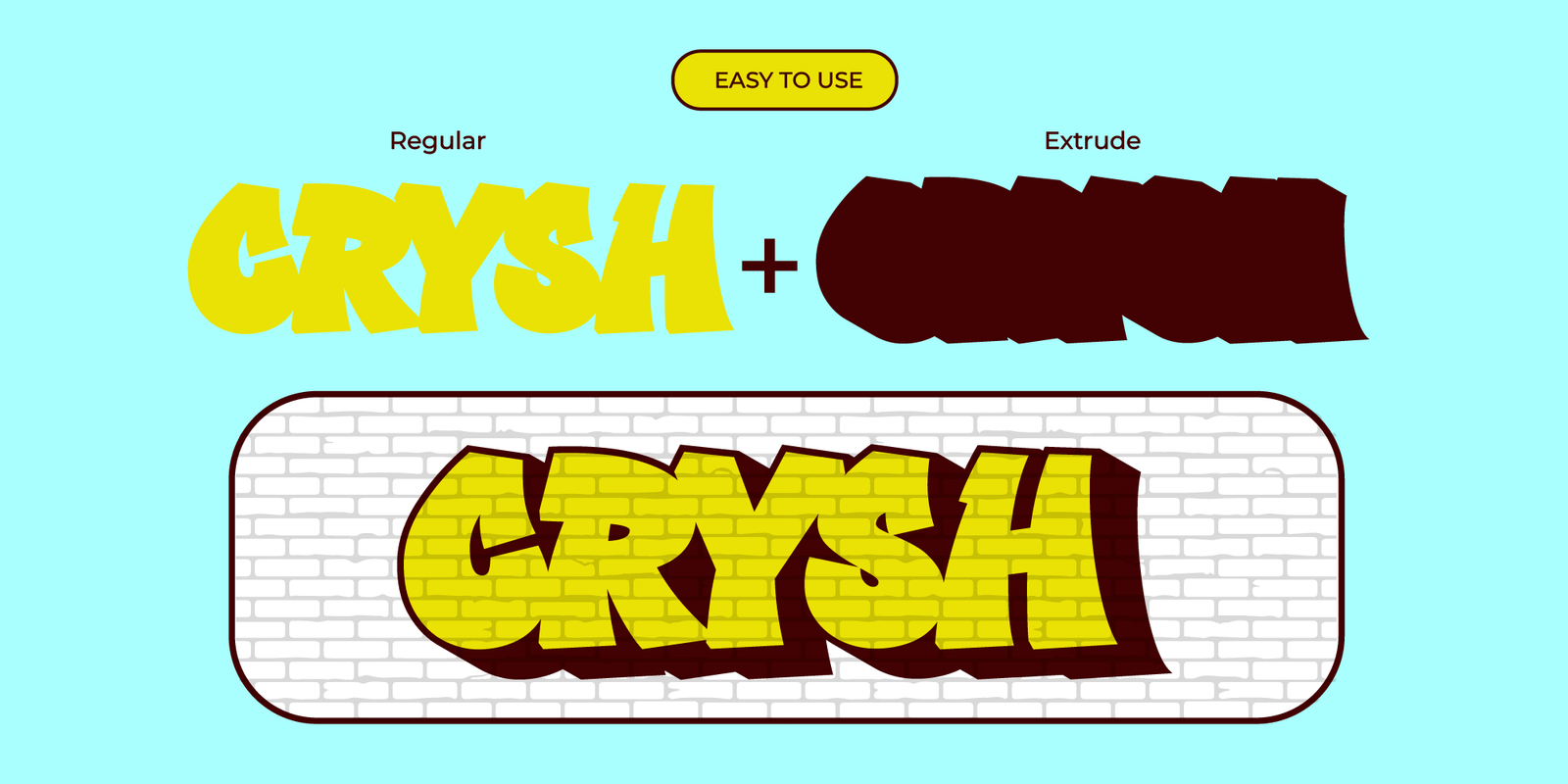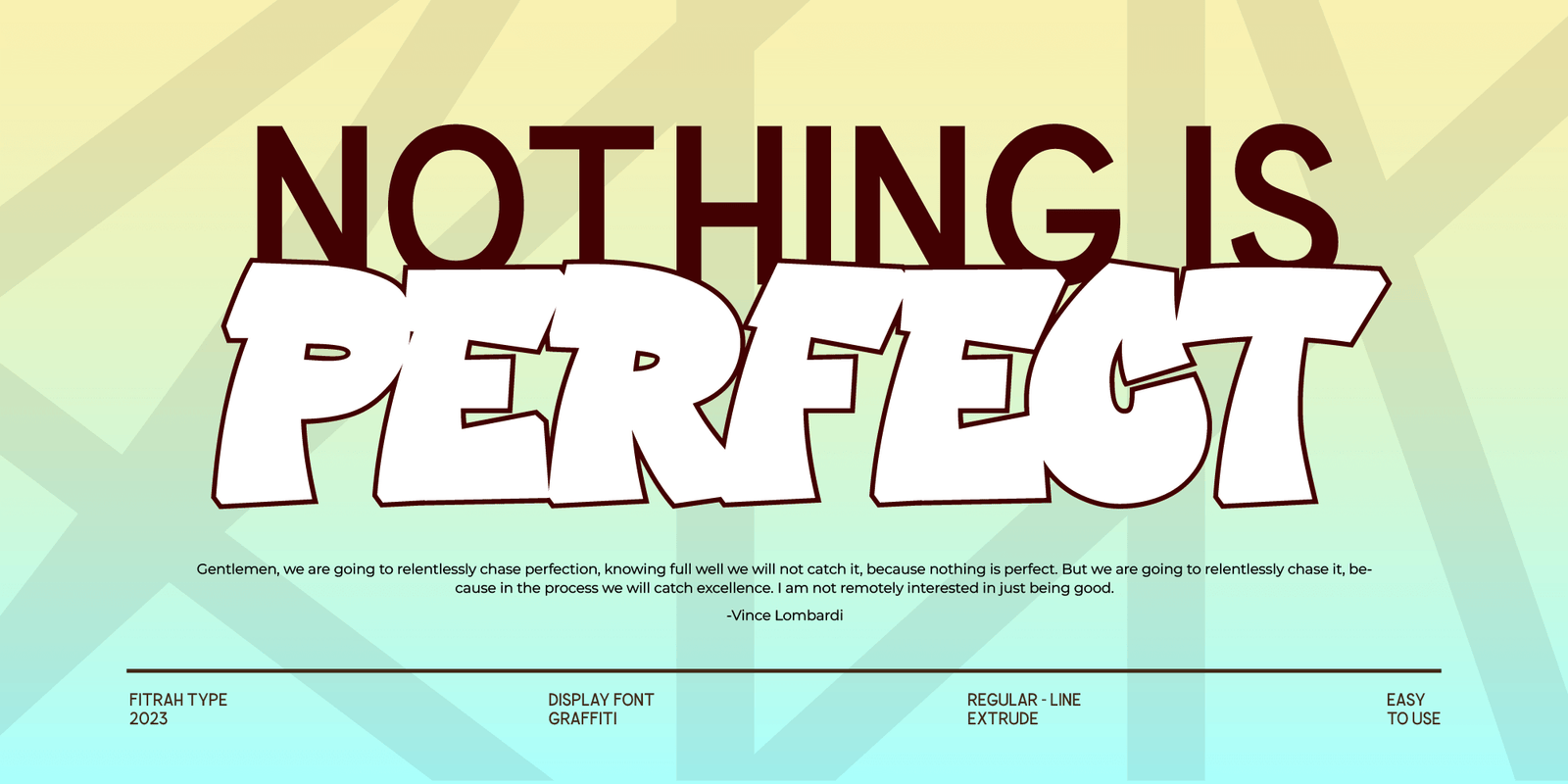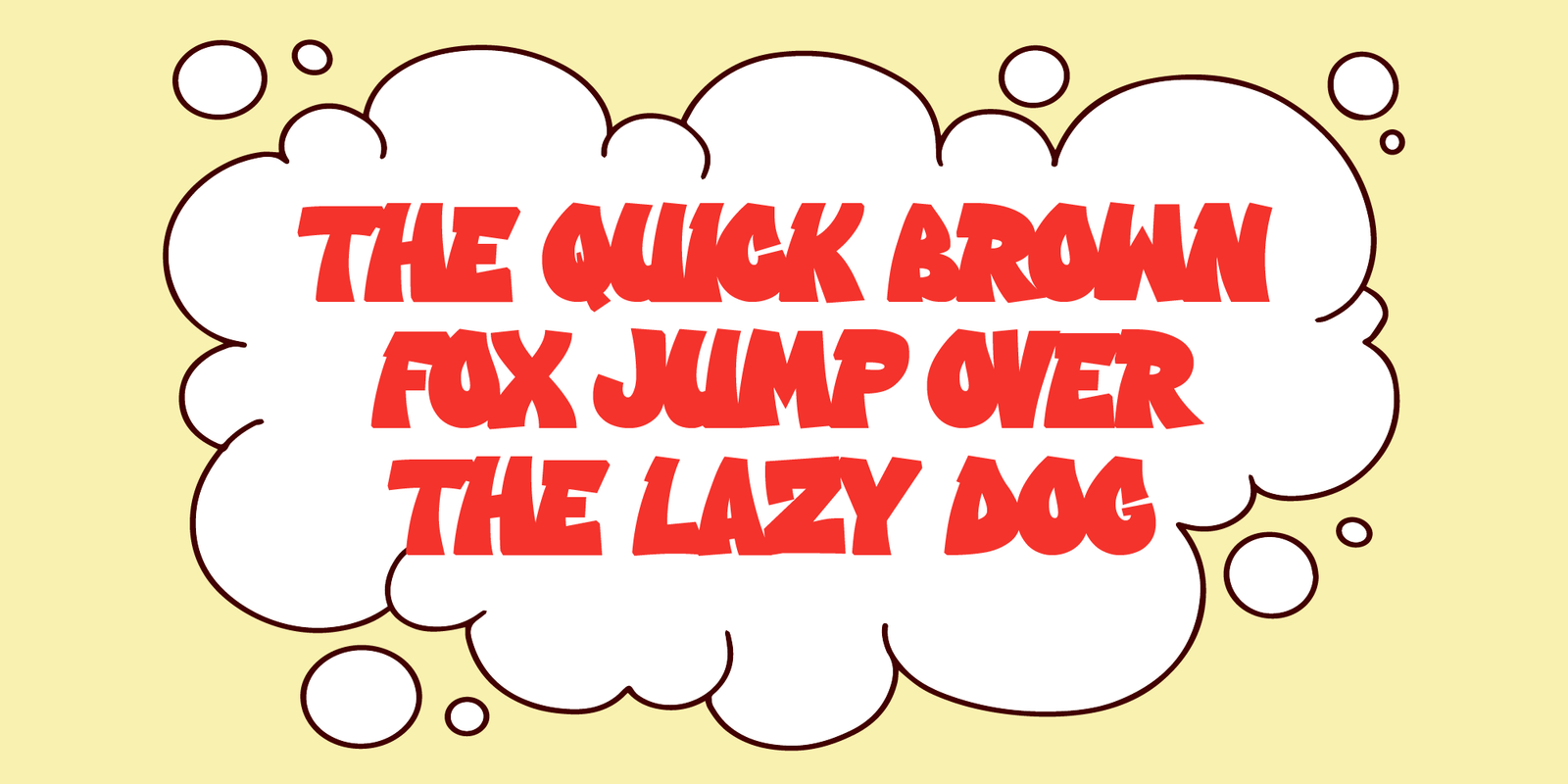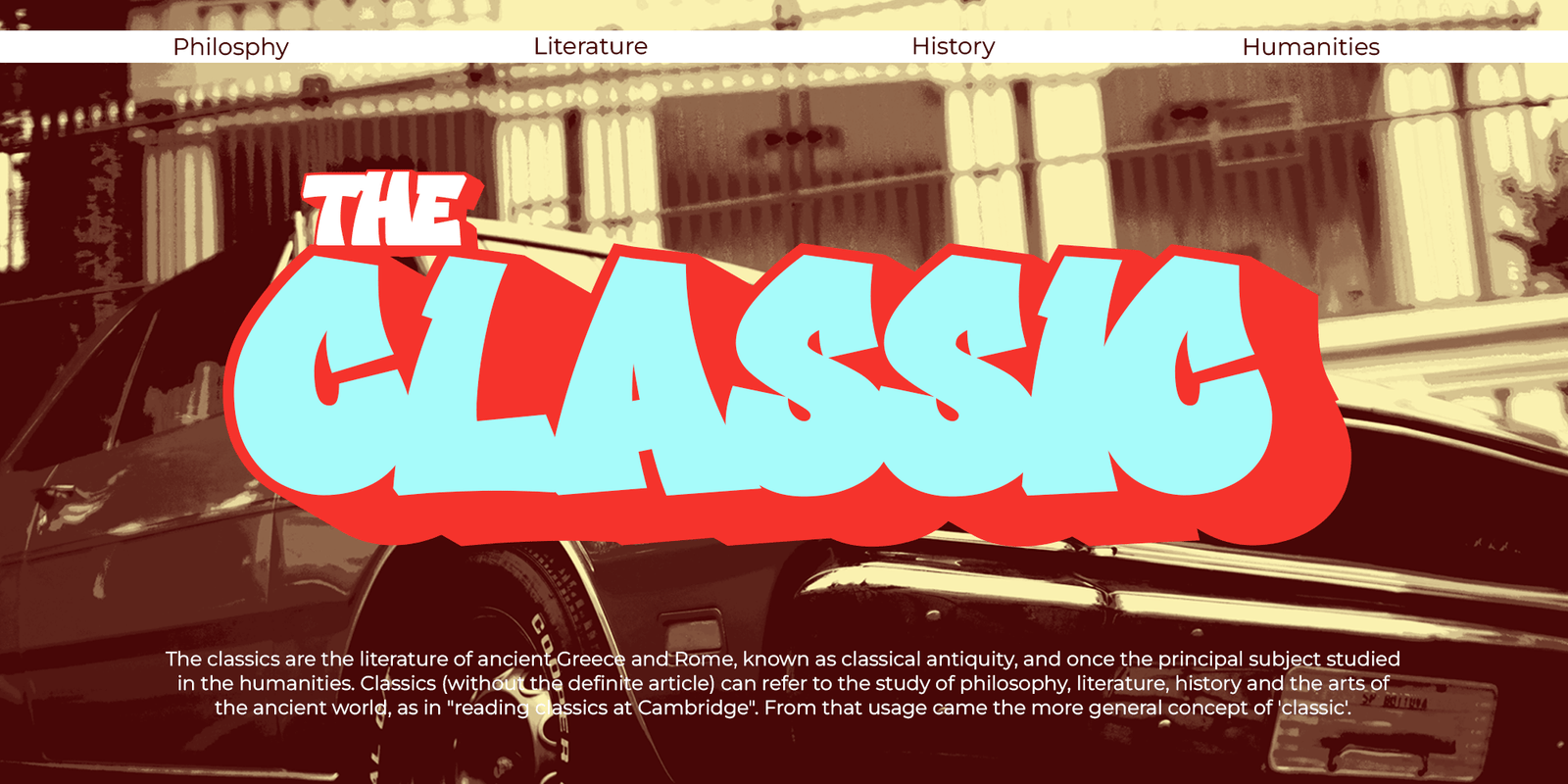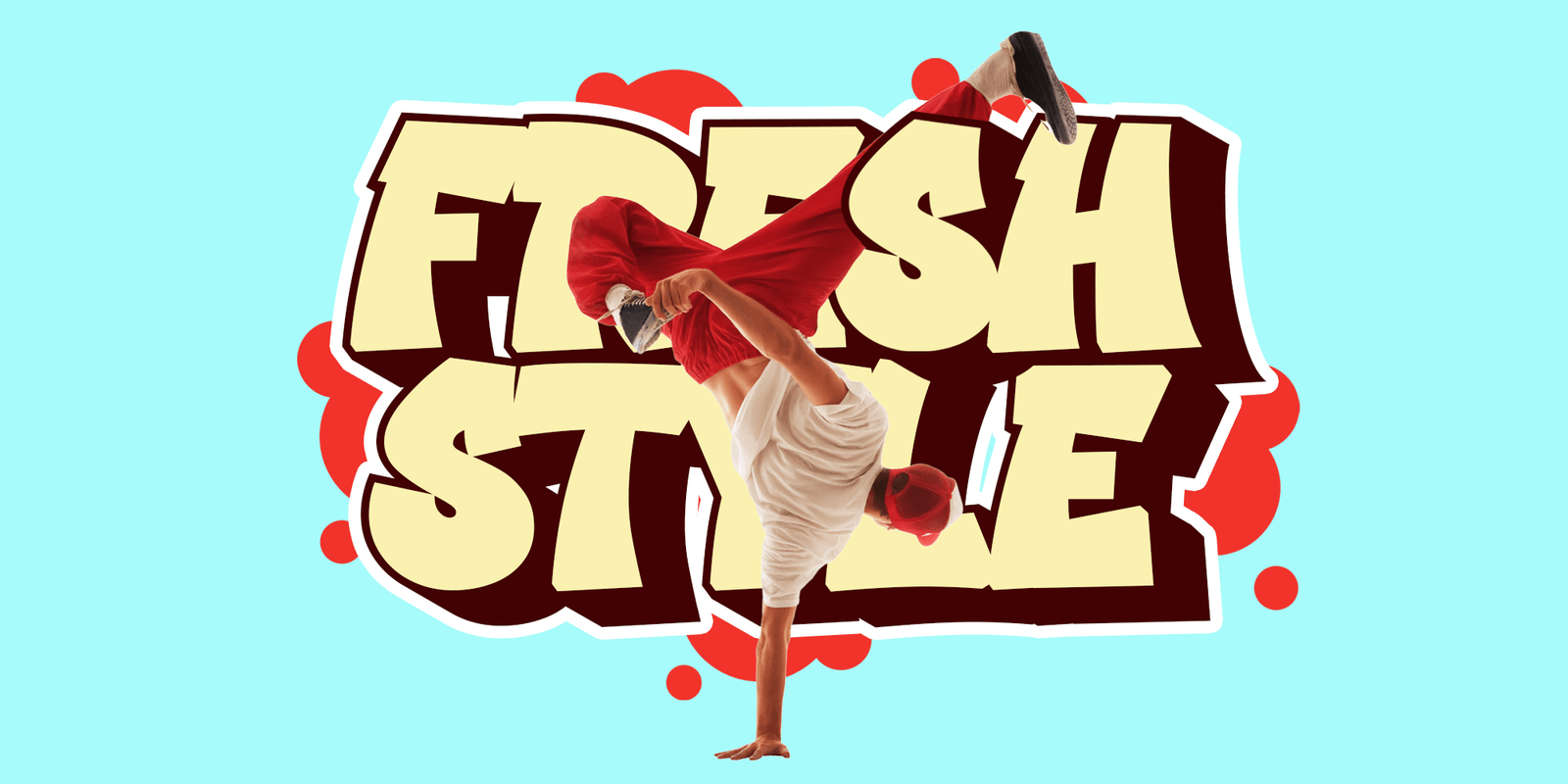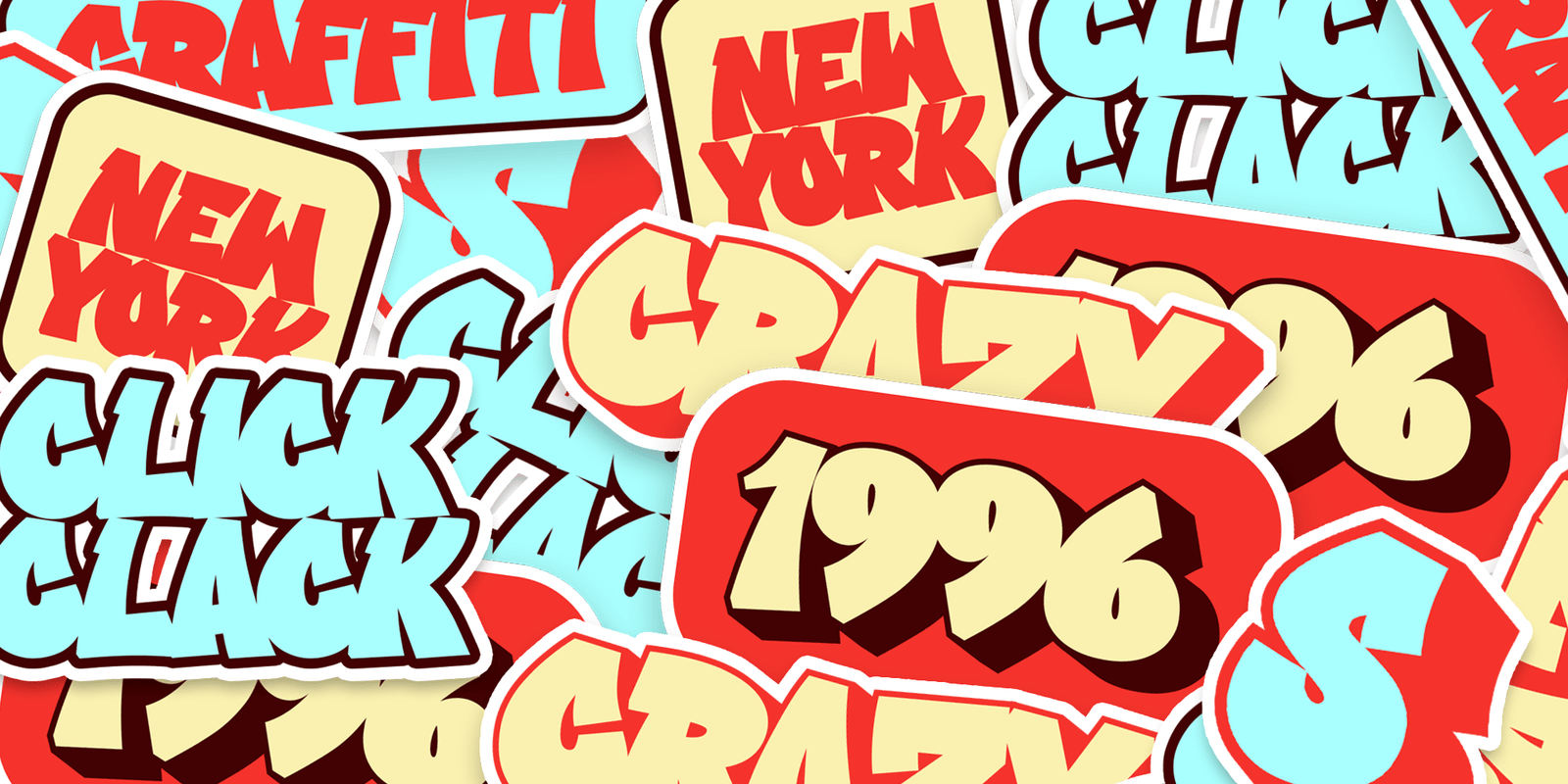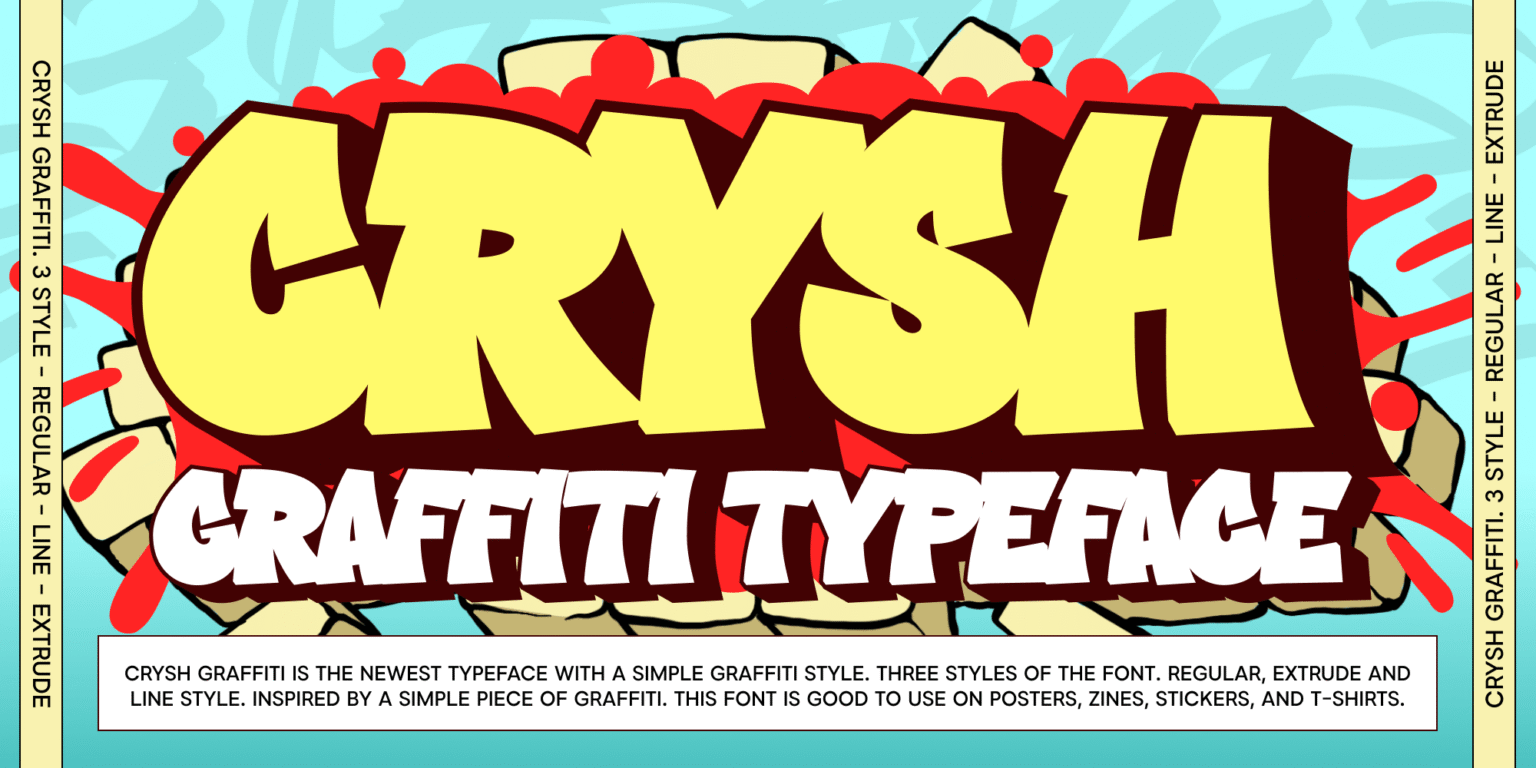
Crysh Graffiti is a bold and expressive typeface that brings the raw energy of street art into a clean, versatile design. Inspired by the effortless flow of graffiti tags, it features three striking styles—Regular, Extrude, and Line—that add depth and character to any project.
Perfect for posters, zines, stickers, and streetwear, Crysh Graffiti blends urban attitude with readability, making it a go-to choice for designers looking to capture the essence of street culture. Whether you’re crafting loud statements or edgy visuals, this typeface delivers the perfect mix of rebellion and style.